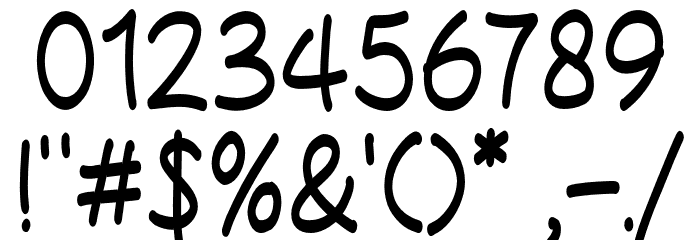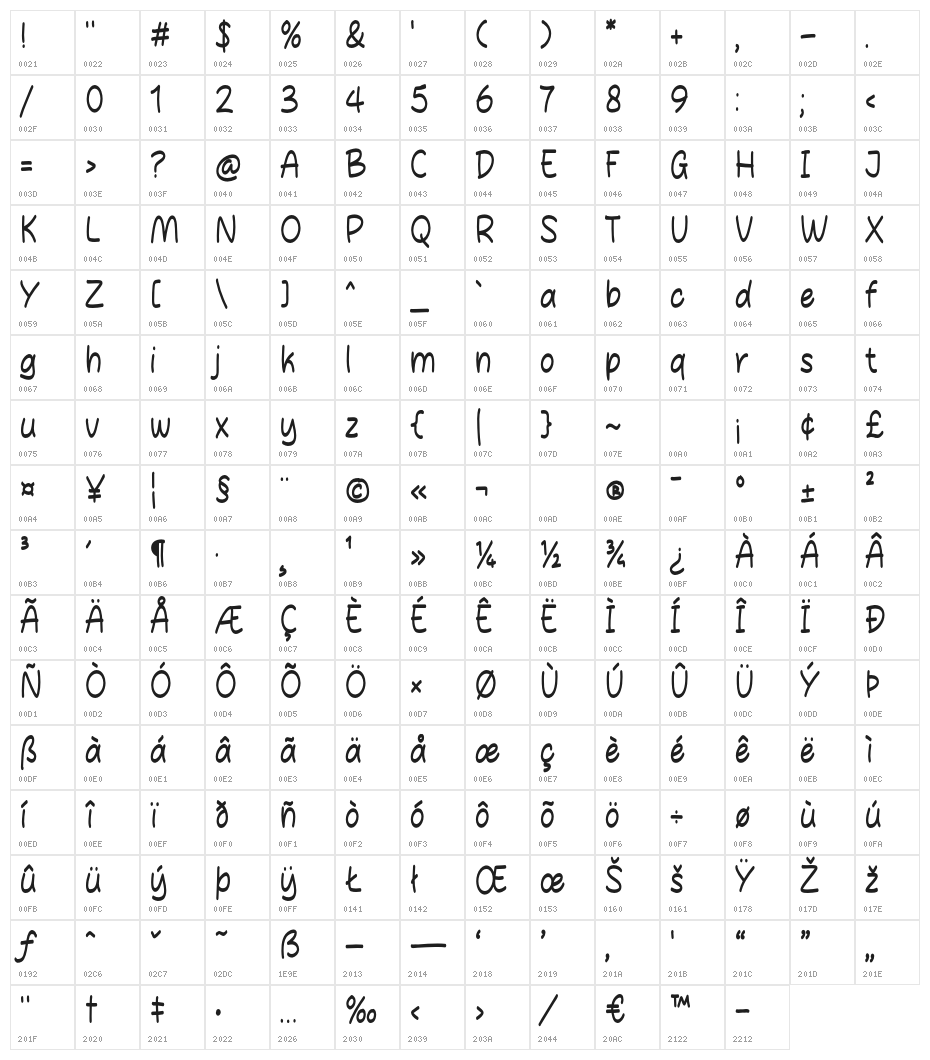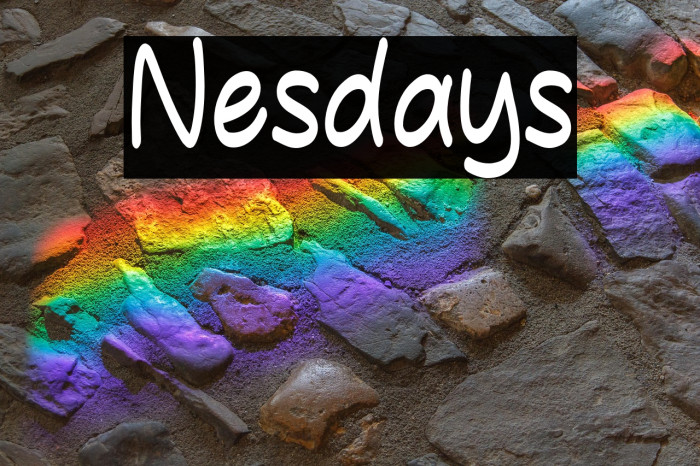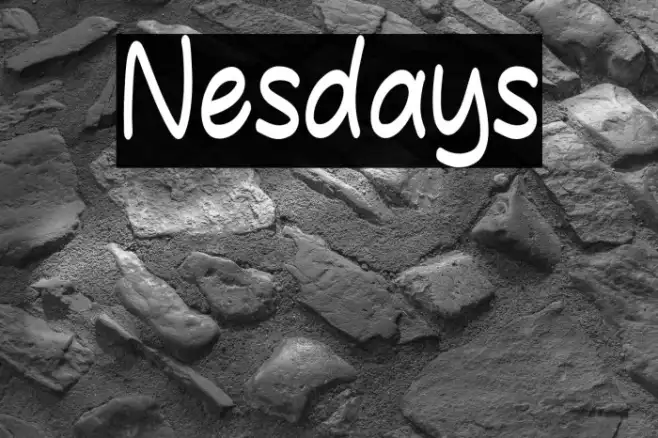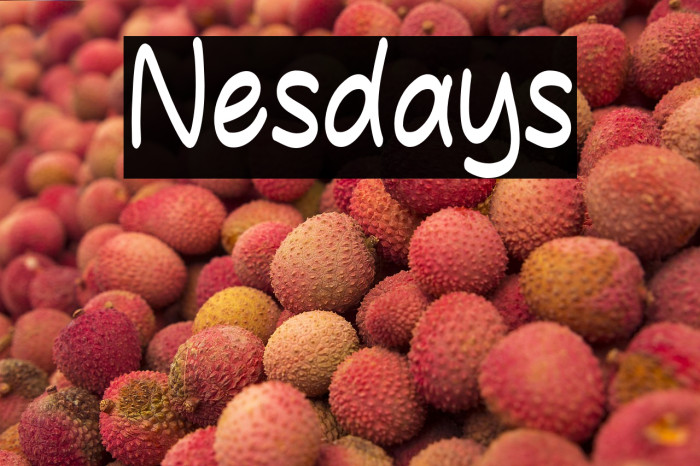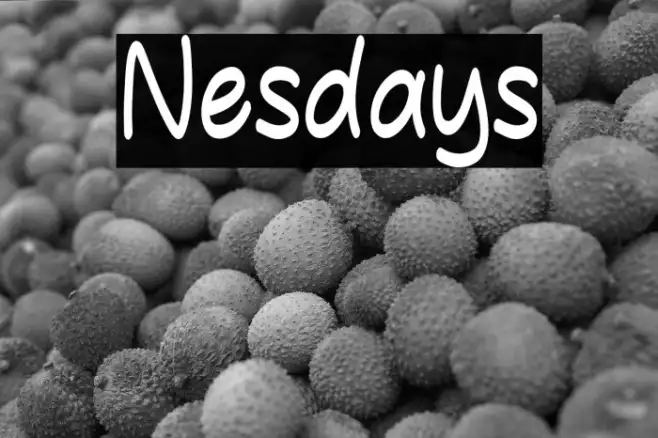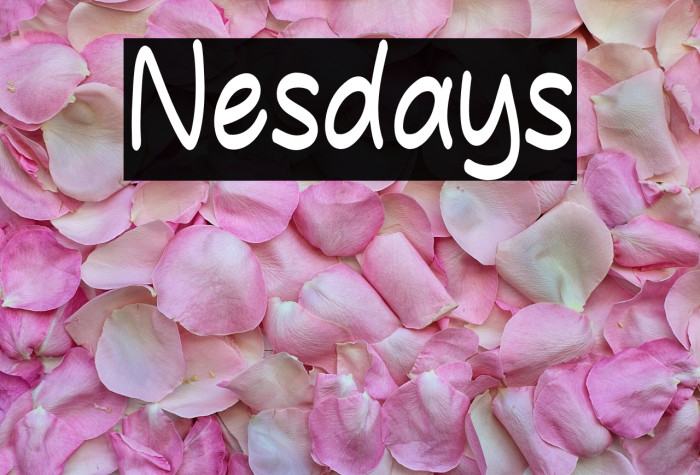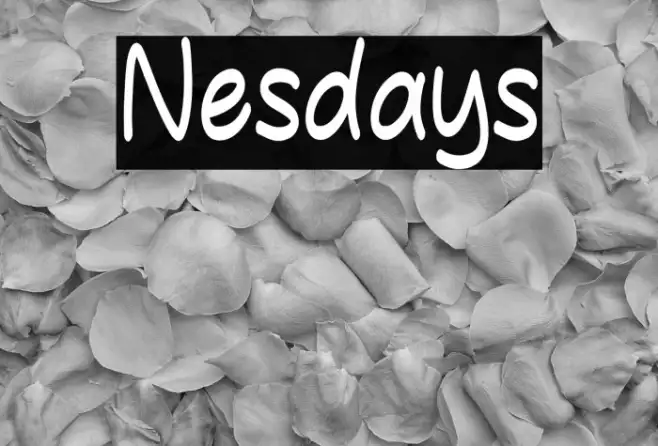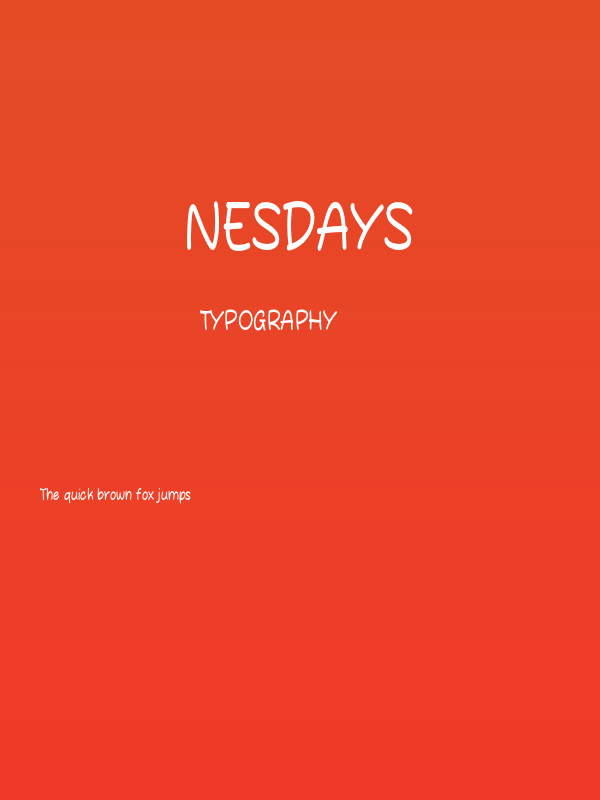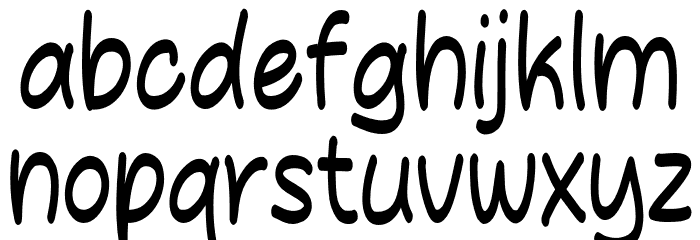
Nesdays Font
Nesdays Description
This font features a playful and casual handwritten style, characterized by its rounded and slightly irregular letterforms. The strokes are consistent in width, giving it a uniform appearance while maintaining a friendly and approachable feel. The letters are slightly tilted, adding to the informal and relaxed vibe. The numerals and special characters follow the same style, ensuring cohesion across all elements. This font's simplicity and charm make it suitable for a variety of creative projects.
Overall StyleCasual
Use CaseHeadlines, Informal text, Creative projects
Proposed ProjectsIdeal for children's books, greeting cards, casual branding, and social media graphics.